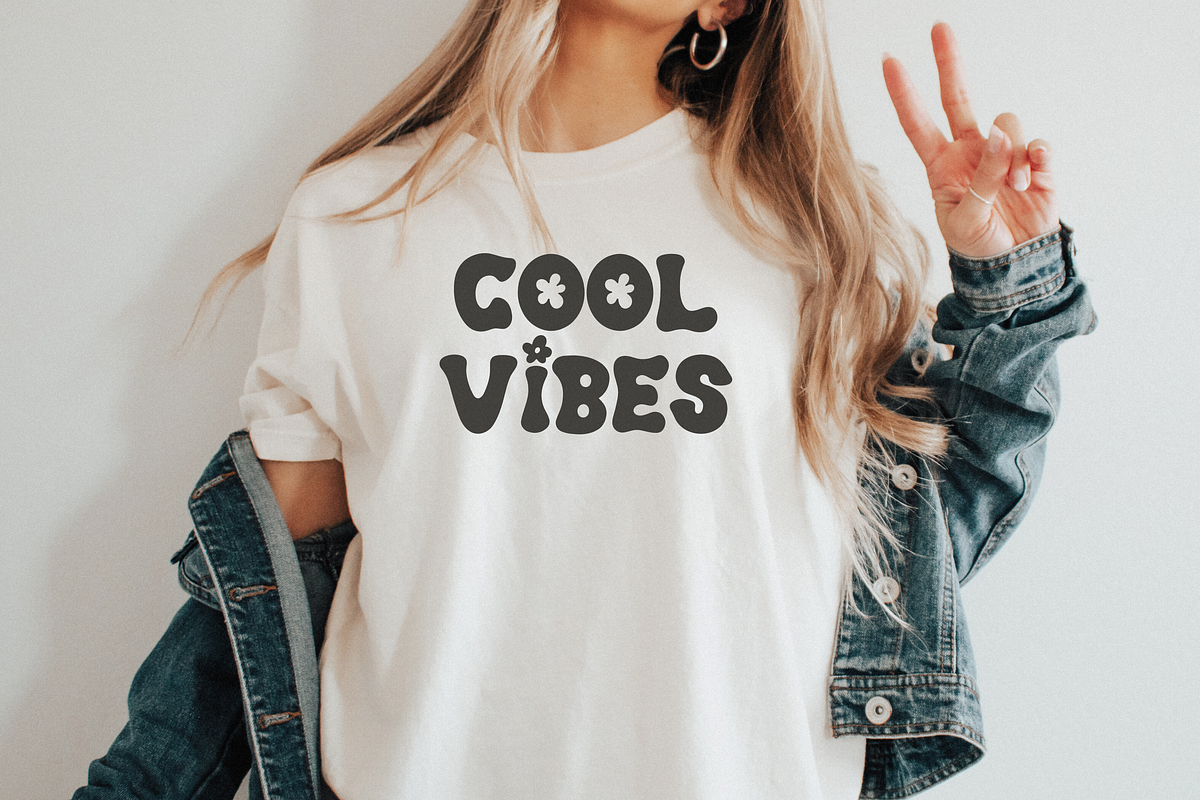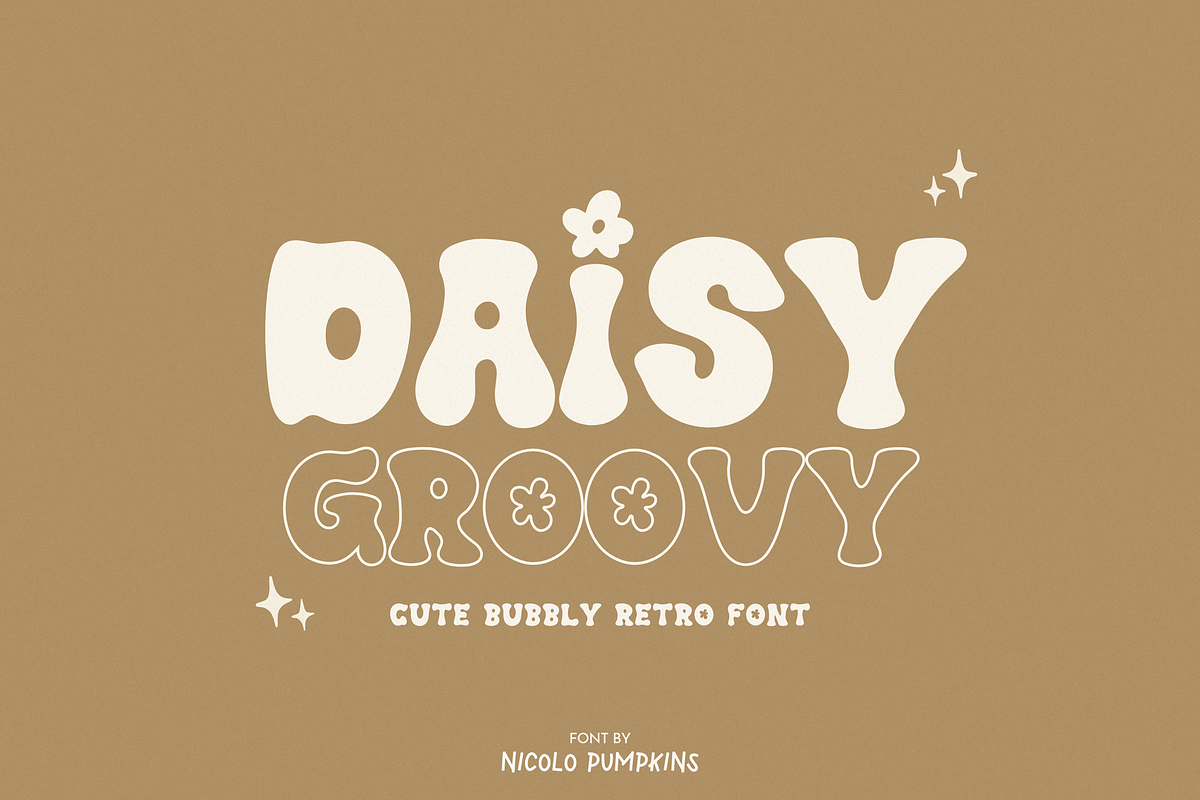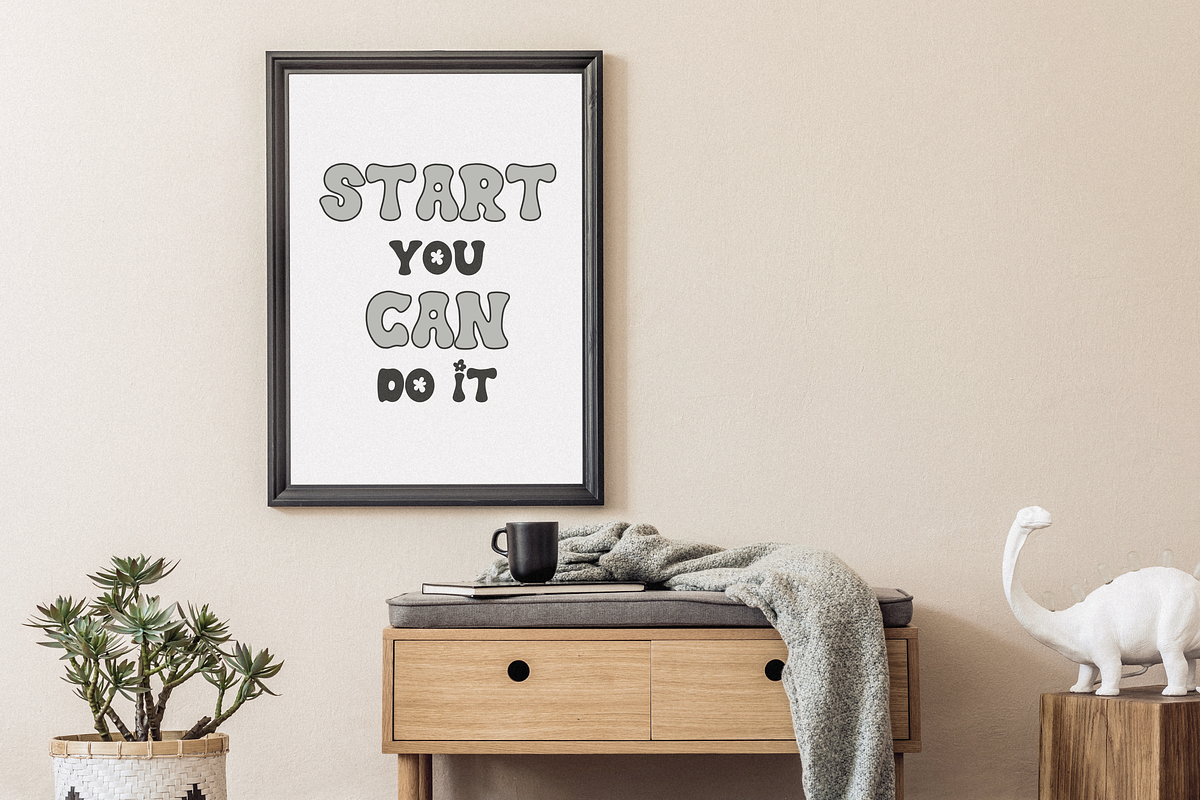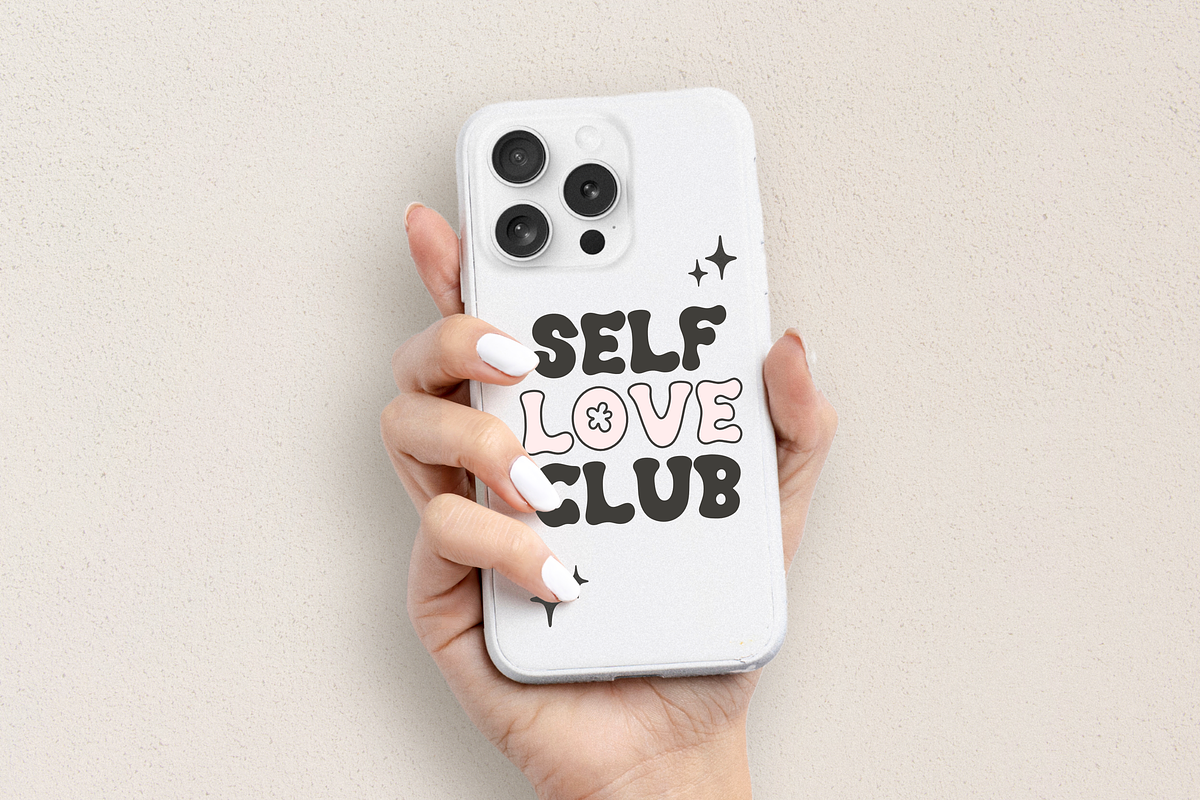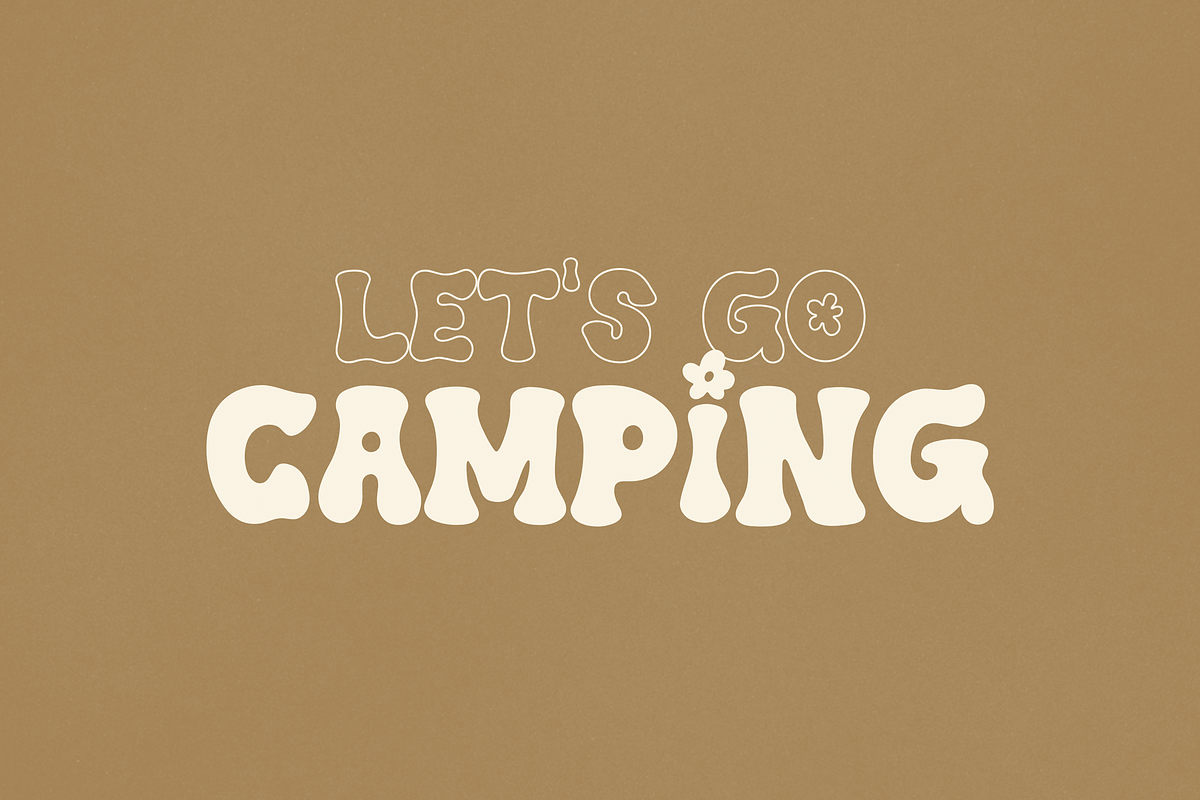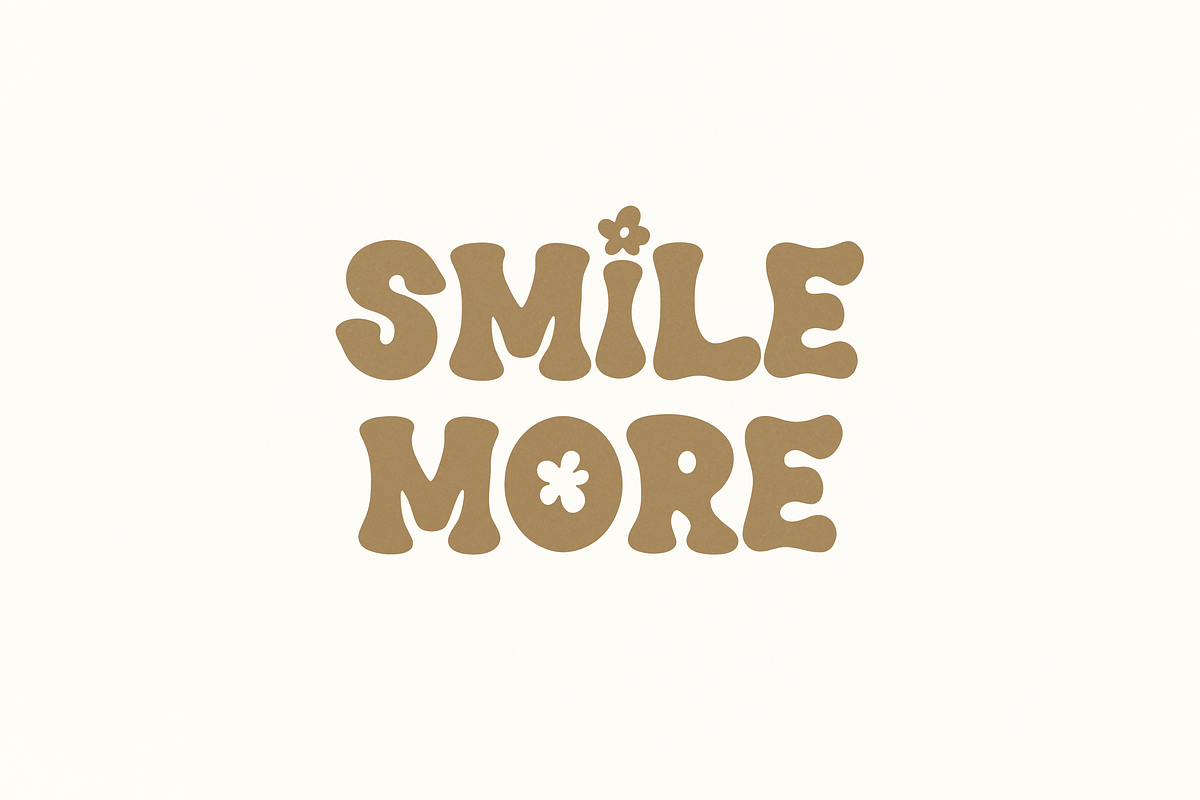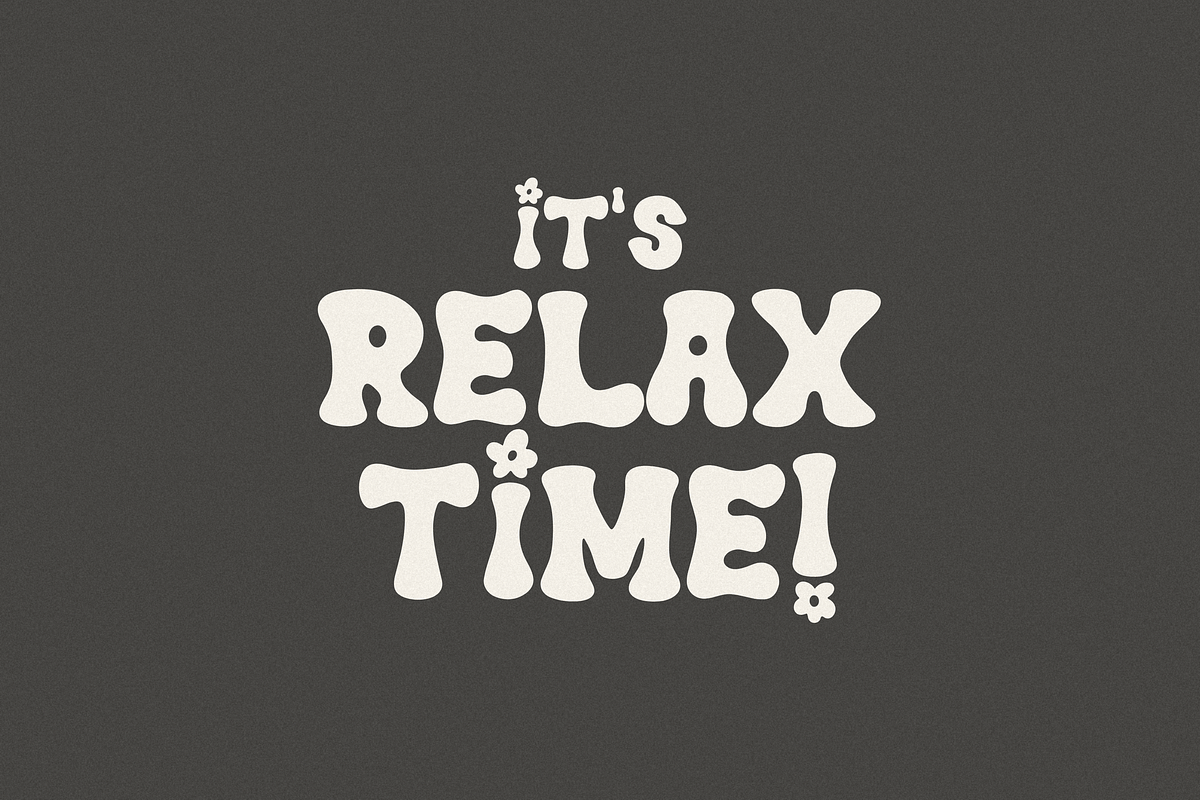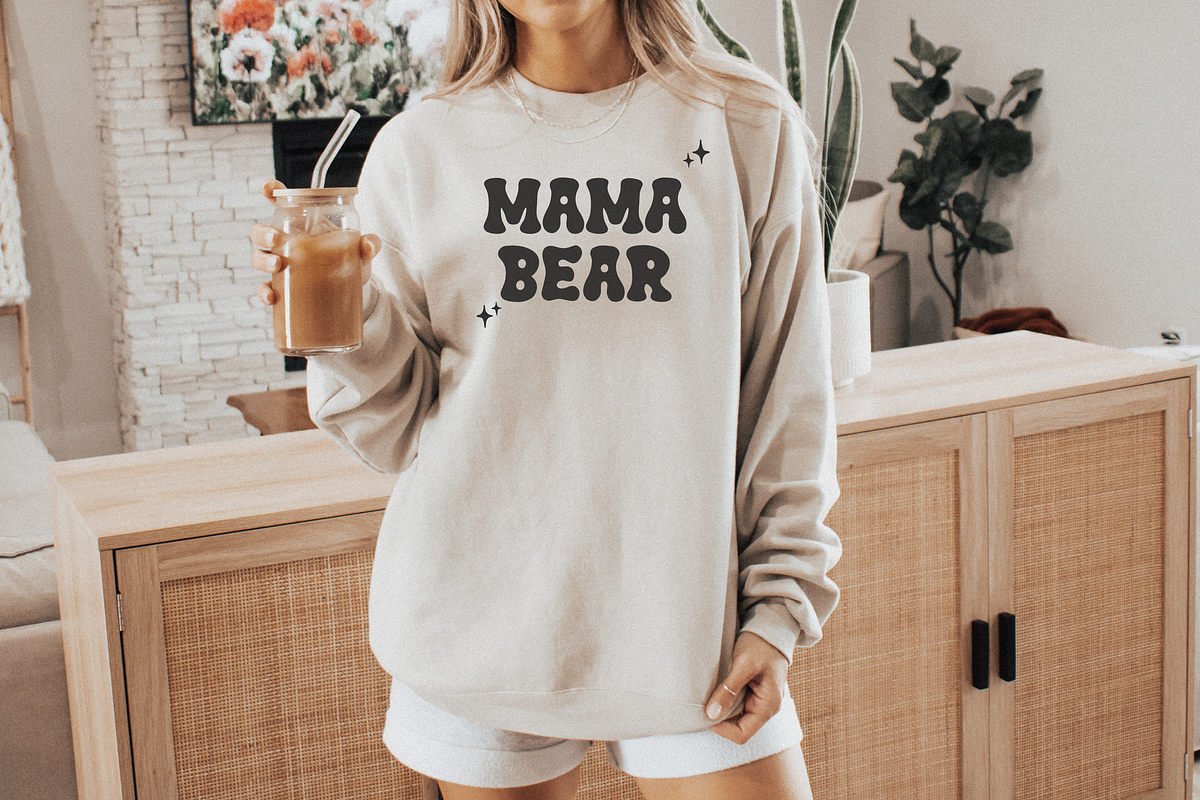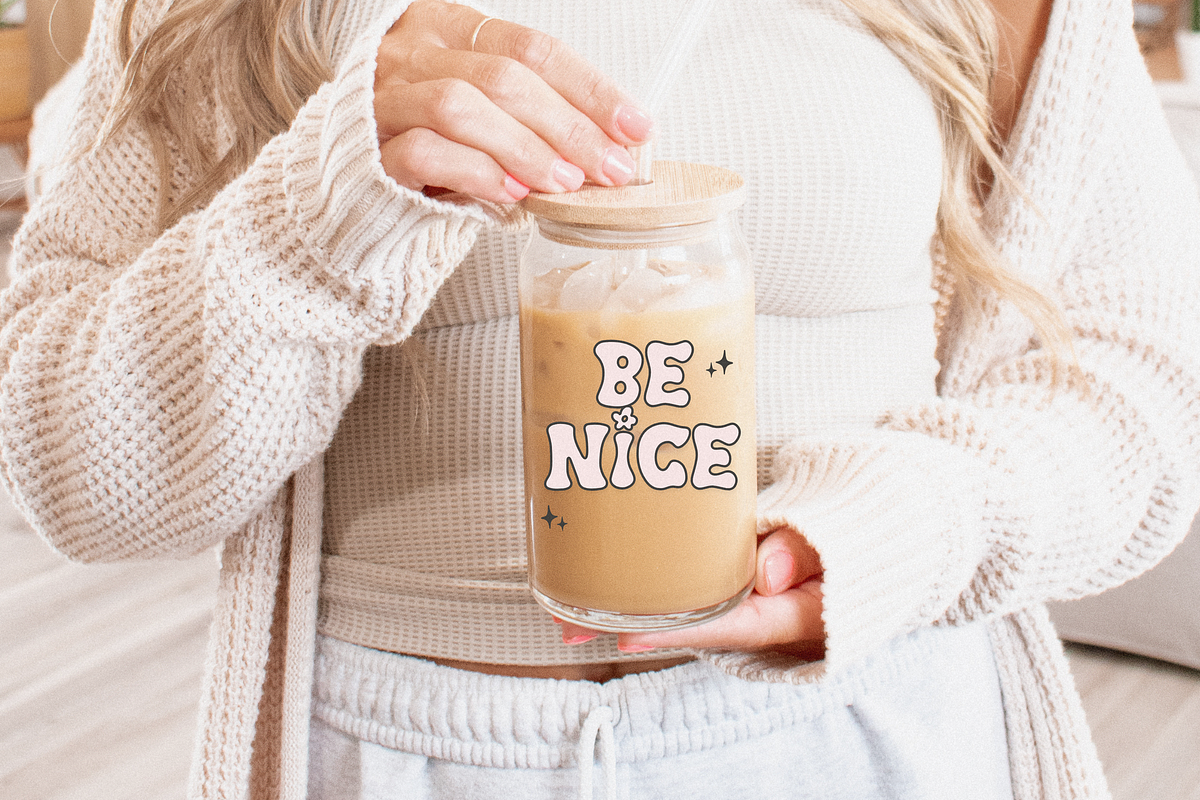
DAISY GROOVY Font
✿ DAISY GROOVY FONT ✿ A cute bubbly retro display font with 70s, hippie and daisy style
✿ DAISY GROOVY is an ALL CAPITAL FONT.
✦ DAISY GROOVY FONT is perfect for: shirts, mugs, logos, wedding invitations, poster, greeting cards, social media, branding, Procreate, Cricut and more!